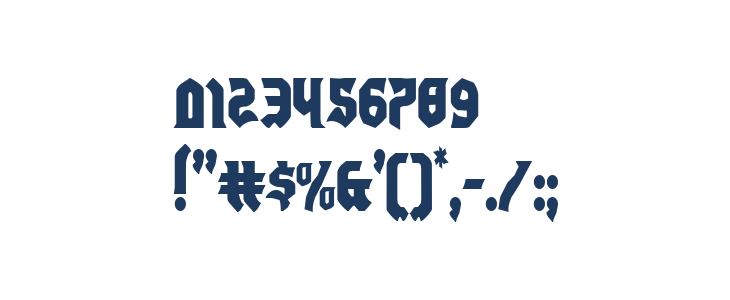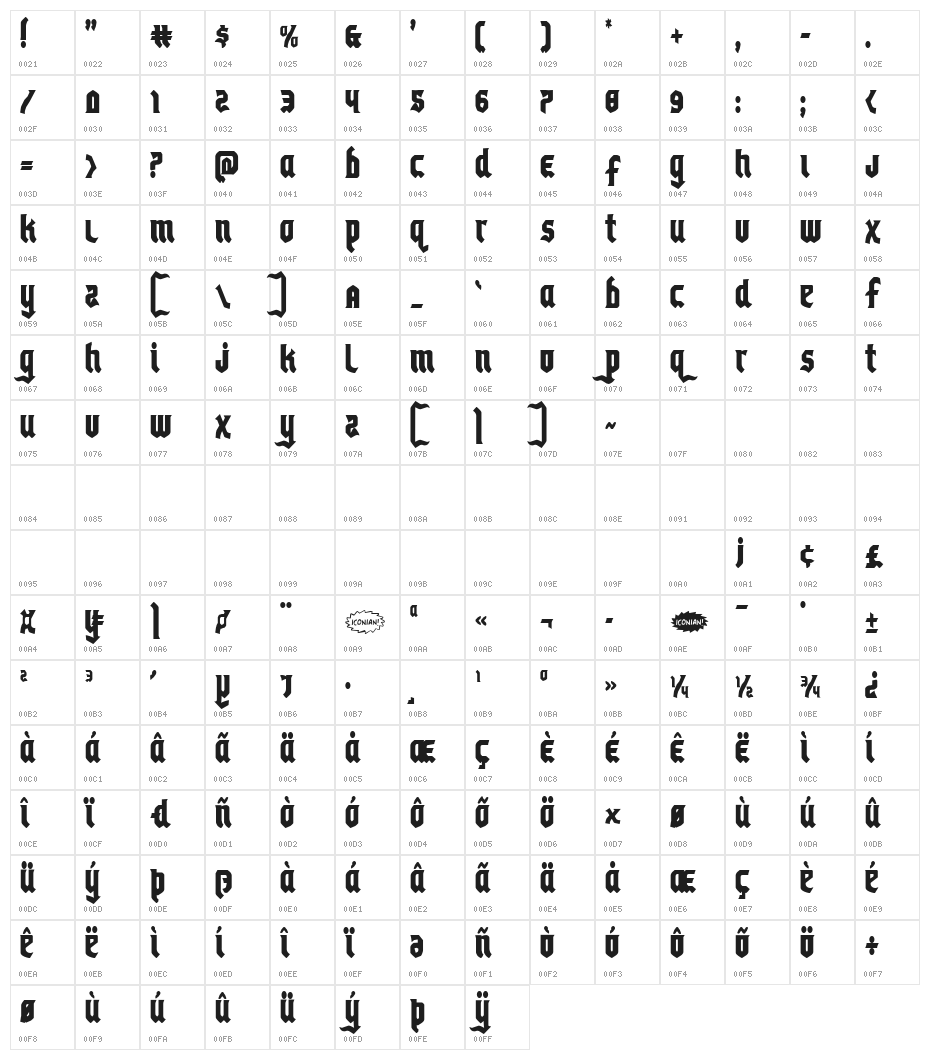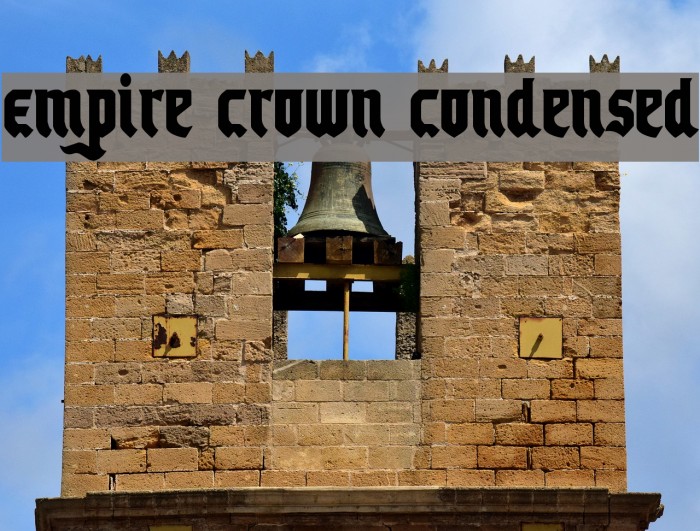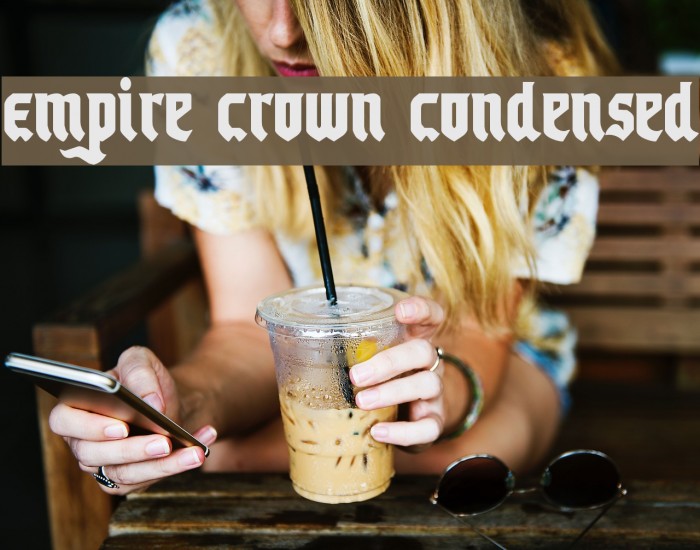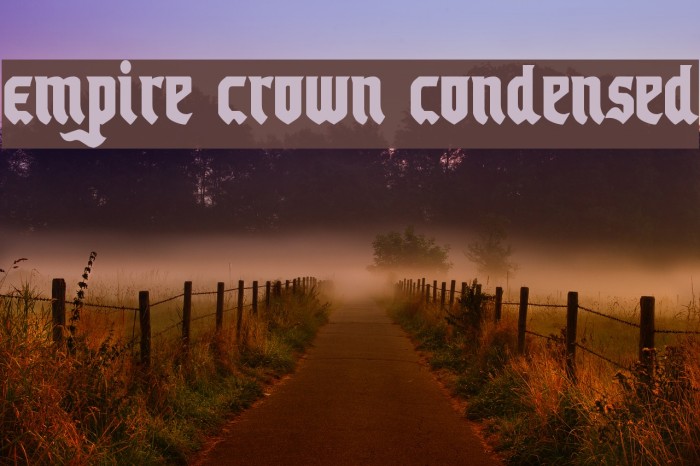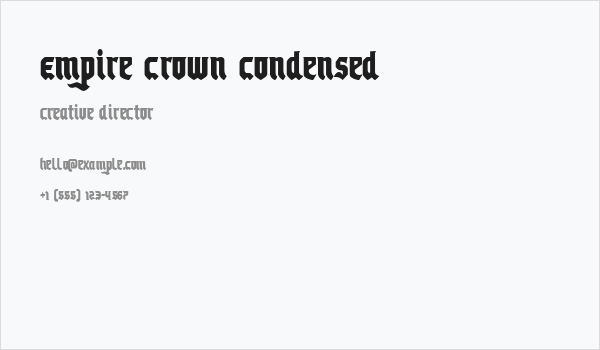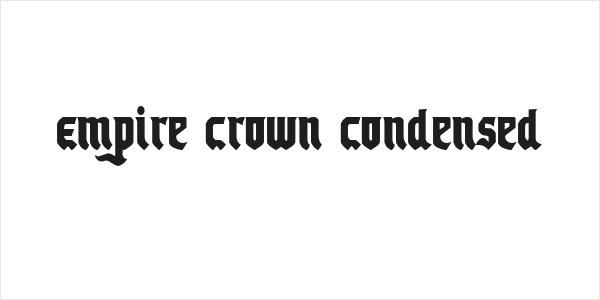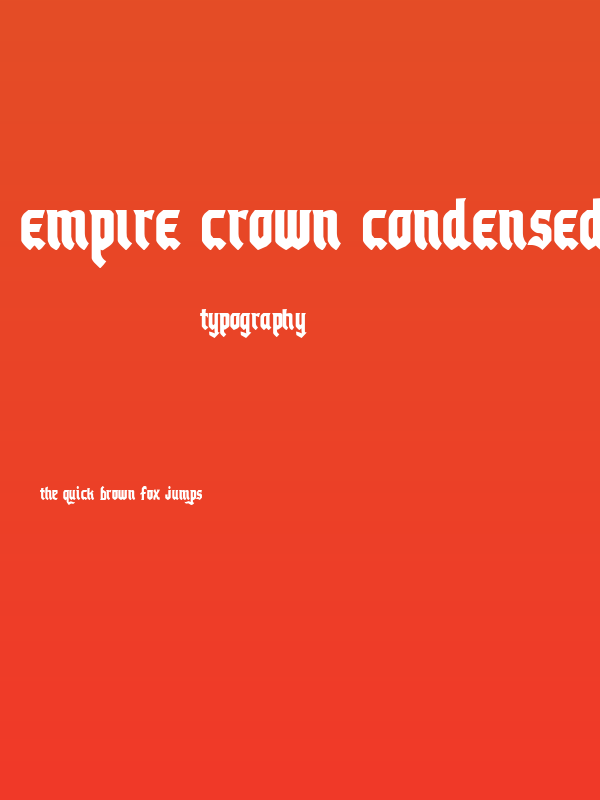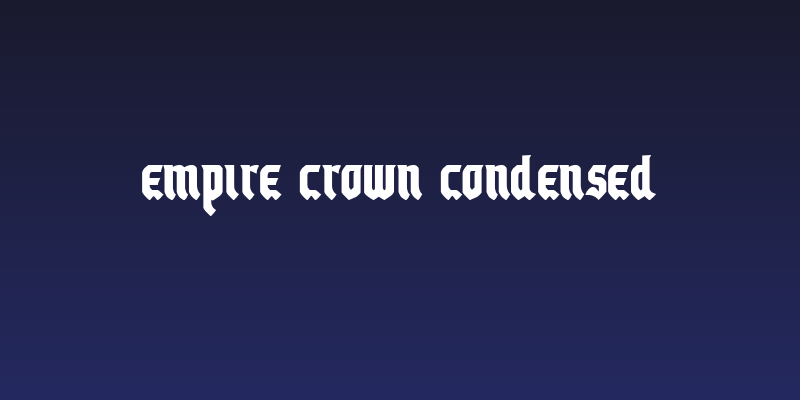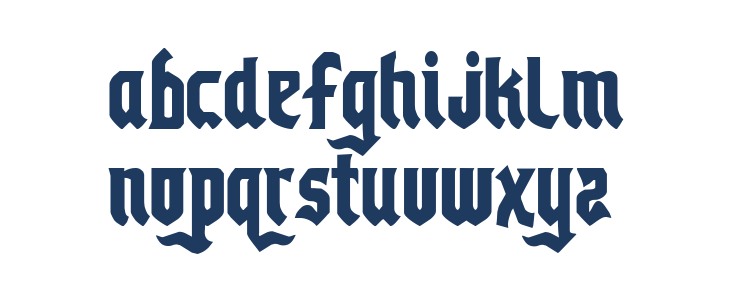
Empire Crown Condensed Font
Empire Crown Condensed Description
This font features a bold and striking design with a strong presence. The characters are condensed, giving a compact and powerful look. The style is reminiscent of traditional blackletter fonts, with sharp angles and a gothic flair. The uppercase and lowercase letters maintain a consistent weight, contributing to a uniform appearance. The numerals and special characters are designed to match the boldness of the letters, ensuring a cohesive look across all text. This font is ideal for projects that require a dramatic and impactful visual style.
| Overall Style | Gothic, Decorative |
| Proposed Projects | Ideal for posters, branding, logos, and any design requiring a strong, gothic aesthetic. |